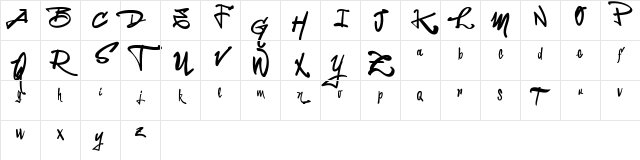
Vtks LaPrensitcha Regular Free Font
Vtks LaPrensitcha Regular
Foundry: douglas vitkauskas
Designer: douglas vitkauskas
Design Context for Vtks LaPrensitcha
Vtks LaPrensitcha is a composed and adaptable typeface that performs quietly and consistently across a wide range of design contexts.